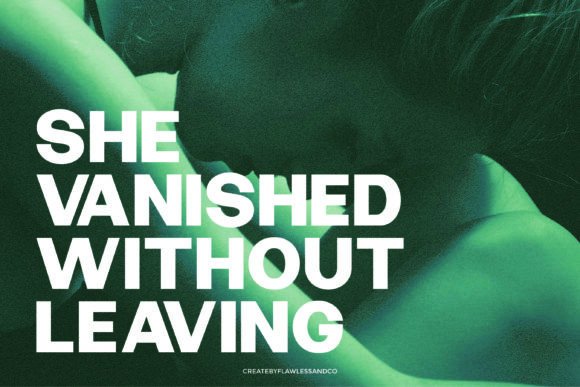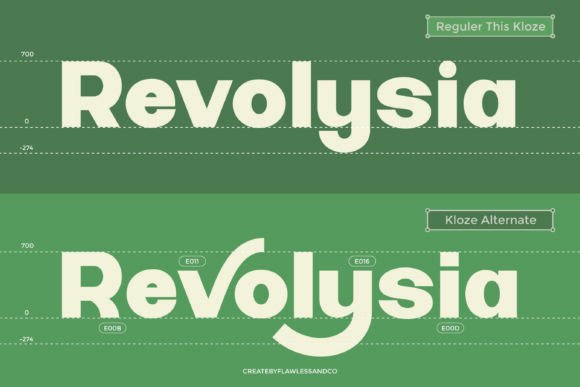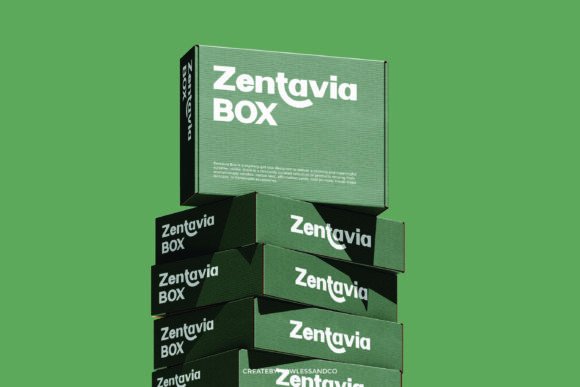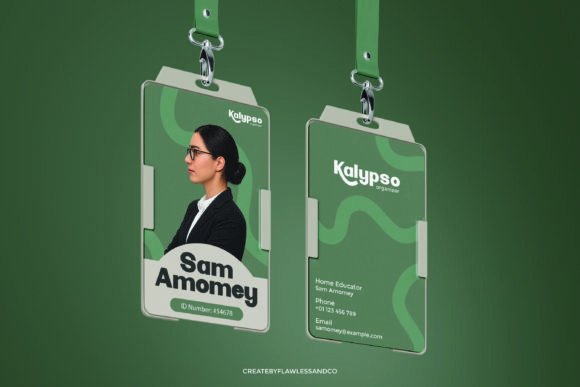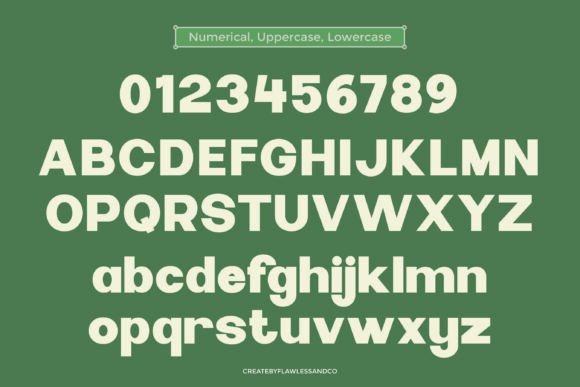
Thiskloze Font
THISKLOZE is a BOLD SANS-SERIF typeface designed to deliver maximum visual impact. With its strong, geometric shapes and modern design, it’s perfect for creating attention-grabbing headlines, powerful logos, and striking brand identities. Whether used in print, digital, or promotional materials, Thiskloze offers clarity, confidence, and a contemporary edge to every project.